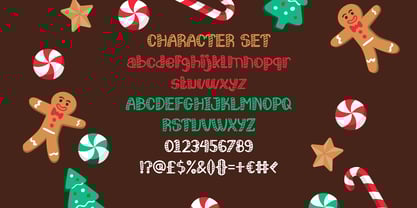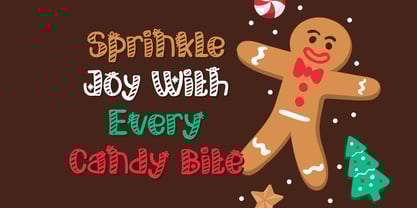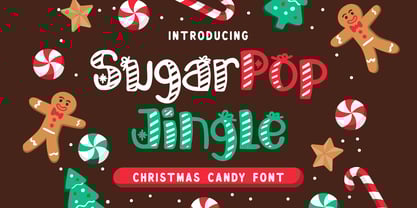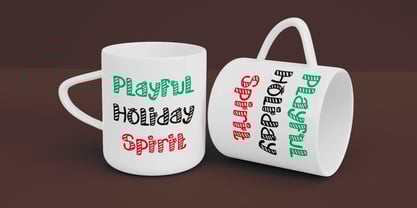
Sugarpop Jingle
by Shanaf
The Sugarpop Jingle Font Family was designed by Yesie Erma Yunita and published by Shanaf. Sugarpop Jingle contains 1 styles.
Get ready to unwrap the festive cheer with Sugarpop Jingle, a delightful Christmas candy font designed to capture the magic of the holiday season. Inspired by sweet peppermint swirls, candy canes, and gingerbread joy, this playful display font brings bold, whimsical letterforms to life with hand-drawn charm and vibrant, candy-striped detailing. Each character pops with a joyful bounce, evoking the innocent glee of childhood holidays. Whether you're designing Christmas sale posters, gift tags, or holiday cards, Sugarpop Jingle adds a spirited and sugary twist to every layout. It features a versatile character set with uppercase, lowercase, numbers, and festive punctuation – all wrapped in delicious holiday energy.
Perfect for seasonal branding and themed merchandise, Sugarpop Jingle thrives in contexts where festive flair is a must. From cocoa mug prints and Christmas packaging to kids’ apparel and store displays, this font offers maximum visual impact. Its unique mix of red, green, and white tones – mimicking traditional holiday colors – enhances readability while maintaining a fun, decorative vibe. Let Sugarpop Jingle sweeten your creative projects and make your designs as memorable as the holiday season itself.